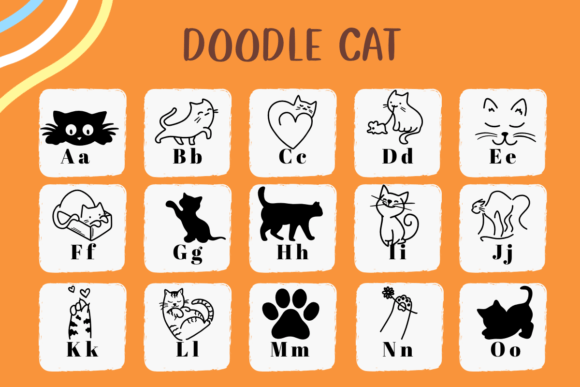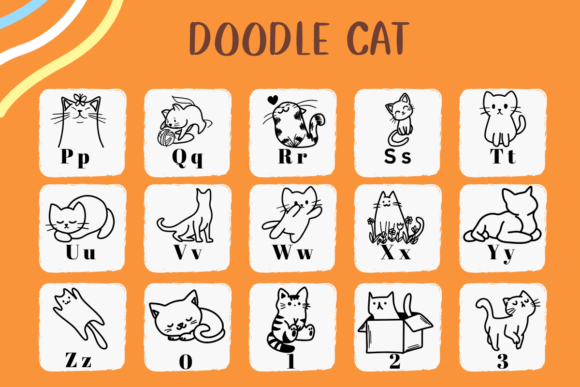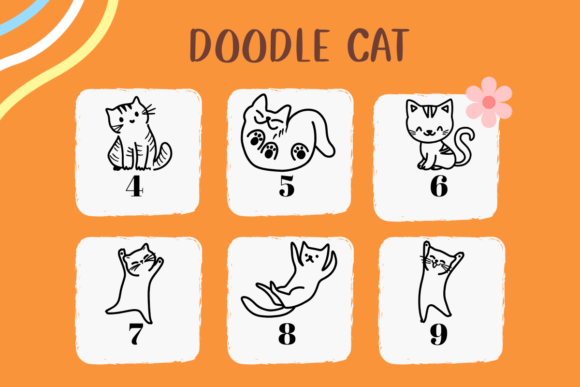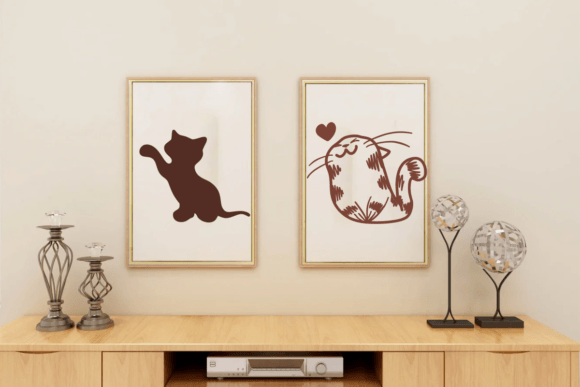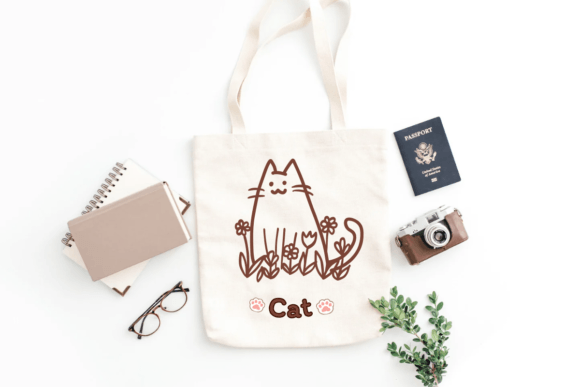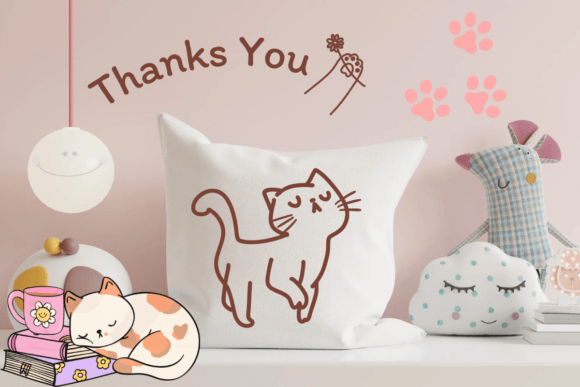
Doodle Cat Font: The Purrfect Addition to Your Creative Projects
Are you a designer, crafter, or DIY enthusiast looking for a unique and adorable font to elevate your creative projects? Look no further than the Doodle Cat Font! This charming dingbat font is sure to capture the hearts of cat lovers and crafty individuals alike. In this article, we’ll dive into the world of Doodle Cat Font, exploring its features, uses, and benefits.
What is Doodle Cat Font?
Doodle Cat Font is a delightful dingbat font that features an assortment of cute cat illustrations, perfect for adding a touch of whimsy to your designs. The font is carefully crafted with a lovely theme, making it an ideal choice for a wide range of creative projects. Whether you’re working on wedding invitations, DIY crafts, decorations, logos, or social media graphics, Doodle Cat Font is sure to bring a smile to your audience’s faces.
Key Features of Doodle Cat Font
- Cute Cat Illustrations: The font features a variety of adorable cat illustrations, each one meticulously designed to bring a touch of playfulness to your designs.
- Dingbat Font: Doodle Cat Font is a dingbat font, which means it’s comprised of symbols and illustrations rather than traditional letters and numbers.
- Lovely Theme: The font’s theme is carefully crafted to evoke a sense of warmth and friendliness, making it perfect for projects that require a personal touch.
- Versatile: Doodle Cat Font can be used for a wide range of creative projects, from digital designs to print materials.
Uses of Doodle Cat Font
Doodle Cat Font is an incredibly versatile font that can be used in various creative projects. Here are some ideas to get you started:
- Wedding Invitations: Add a touch of whimsy to your wedding invitations with Doodle Cat Font. You can use the font to create custom illustrations, borders, or even a special message.
- DIY Crafts: Doodle Cat Font is perfect for DIY craft projects, such as card making, scrapbooking, or paper crafting.
- Decorations: Use the font to create custom decorations, such as garlands, banners, or wall art.
- Logos: Doodle Cat Font can be used to create a custom logo for your business or brand.
- Social Media Graphics: Add a touch of personality to your social media graphics with Doodle Cat Font.
Benefits of Using Doodle Cat Font
So, why should you choose Doodle Cat Font for your creative projects? Here are some benefits to consider:
- Unique and Adorable: Doodle Cat Font offers a unique and adorable way to add personality to your designs.
- Easily Customizable: The font is easily customizable, allowing you to adjust the size, color, and style to suit your project’s needs.
- Time-Saving: With Doodle Cat Font, you can quickly and easily add illustrations to your designs, saving you time and effort.
- Fun and Engaging: The font’s playful theme is sure to engage your audience and bring a smile to their faces.
Tips for Using Doodle Cat Font
Here are some tips to help you get the most out of Doodle Cat Font:
- Experiment with Different Sizes: Try using the font in different sizes to create visual interest and hierarchy.
- Mix and Match Illustrations: Combine different illustrations from the font to create a unique and playful design.
- Use with Other Fonts: Pair Doodle Cat Font with other fonts to create a visually appealing contrast.
- Color It In: Experiment with different colors to bring your designs to life.
Doodle Cat Font is a delightful dingbat font that’s sure to bring a touch of whimsy to your creative projects. With its cute cat illustrations, lovely theme, and versatility, this font is perfect for designers, crafters, and DIY enthusiasts alike. Whether you’re working on wedding invitations, DIY crafts, decorations, logos, or social media graphics, Doodle Cat Font is the purrfect addition to your design toolkit.